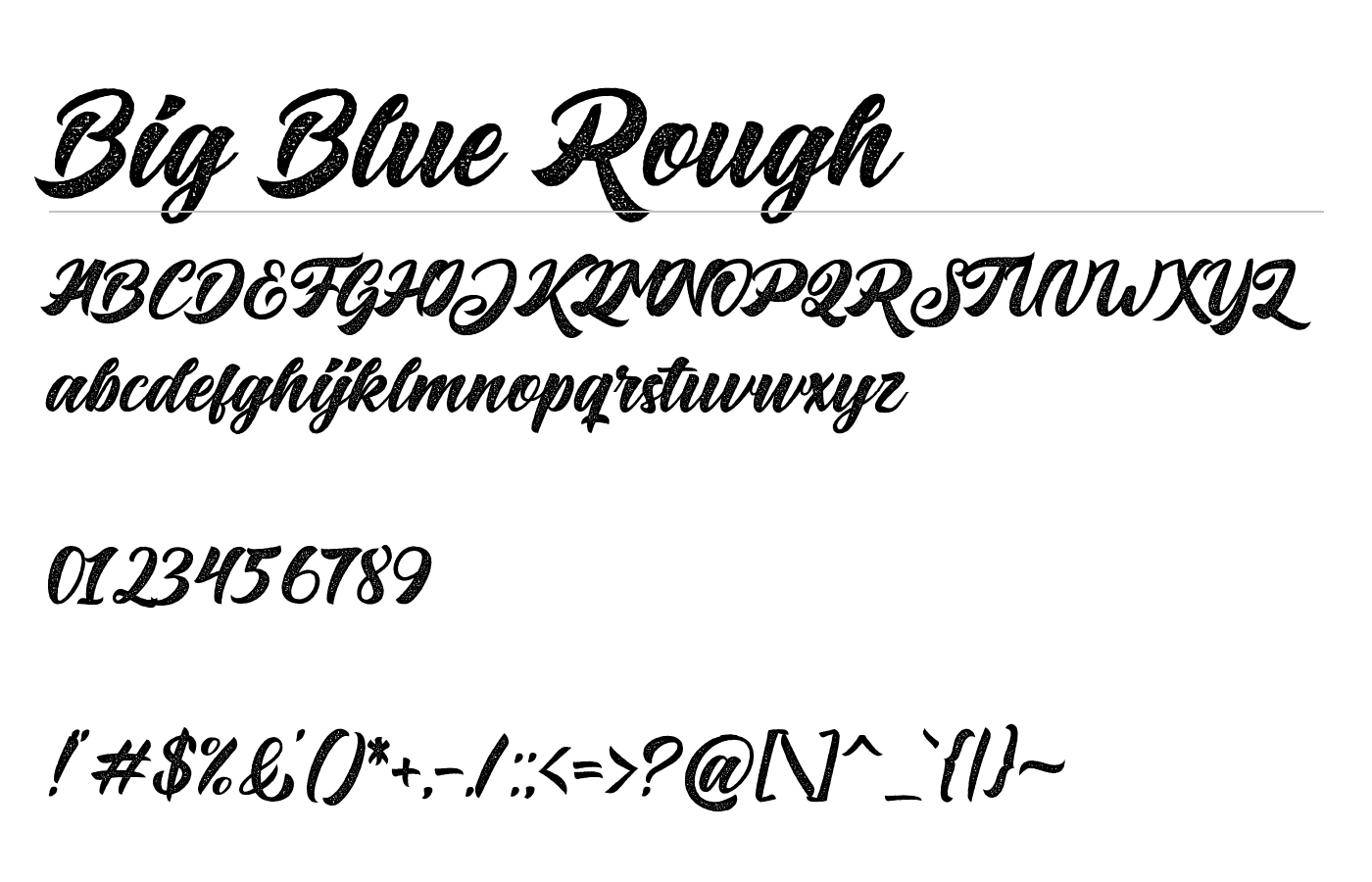
Big Blue Rough is a bold, textured script font with a lively, hand-painted feel. Its rough edges and dynamic strokes give it a casual yet energetic personality, perfect for adding a creative, vintage touch to logos, posters, and packaging. This font works well for brands seeking a playful and authentic style with a handcrafted vibe.
Big Blue Rough Font
About Big Blue Rough Font
| Font family | Big Blue Rough Font |
| Designer | Ferdiansyah_Ijemrockart |